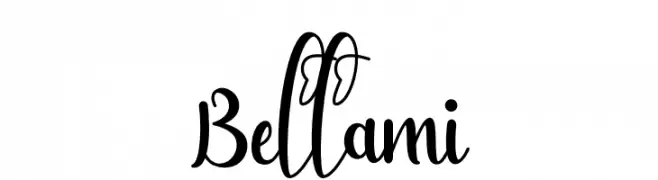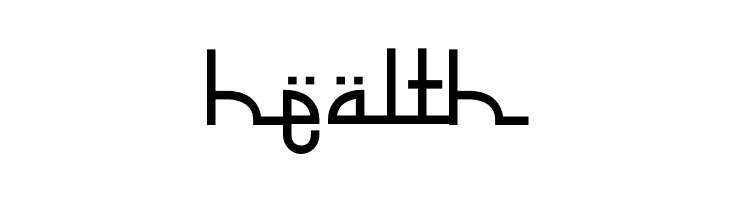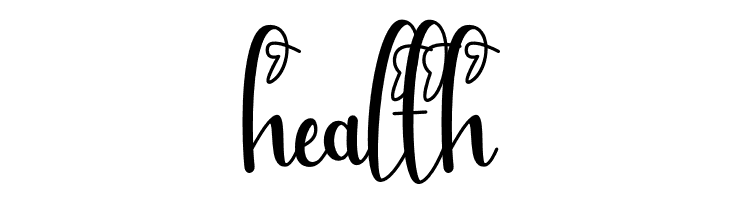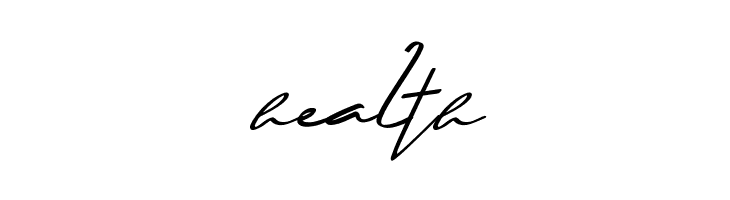
A geometric, angular font with a wireframe appearance and thin strokes.
A modern, italicized font with a sleek and dynamic style.
A modern, geometric font with interconnected characters and a futuristic style.
A lively, dynamic handwritten script with fluid, connected strokes.
A charming and elegant script font with flowing, cursive letterforms.
A playful and elegant script font with decorative swashes and flourishes.
A cursive, handwritten font with elegant, flowing strokes and a dynamic style.
A dynamic script font with elegant curves and fluid strokes.
A bold, decorative font with high contrast and playful elements.